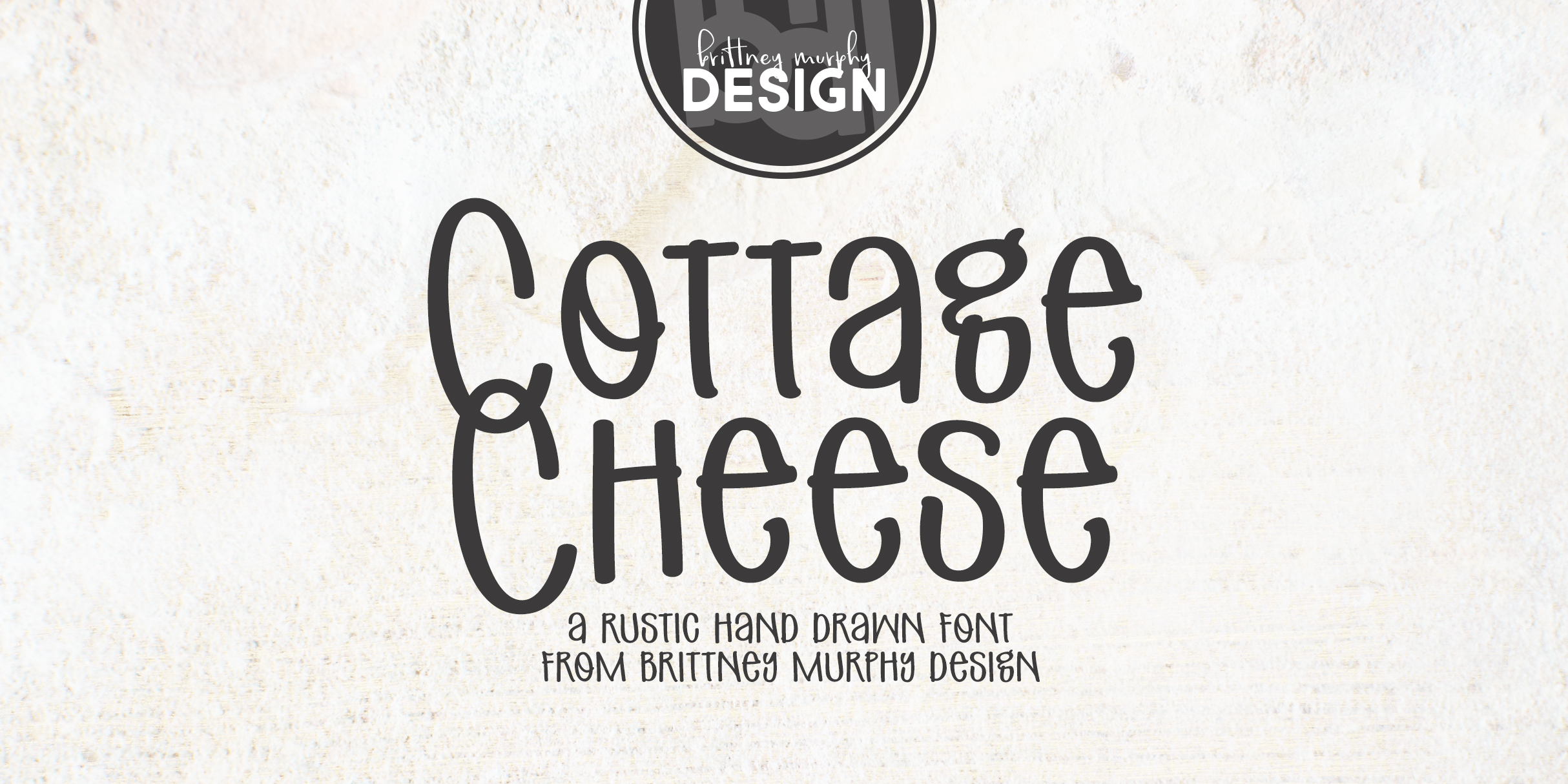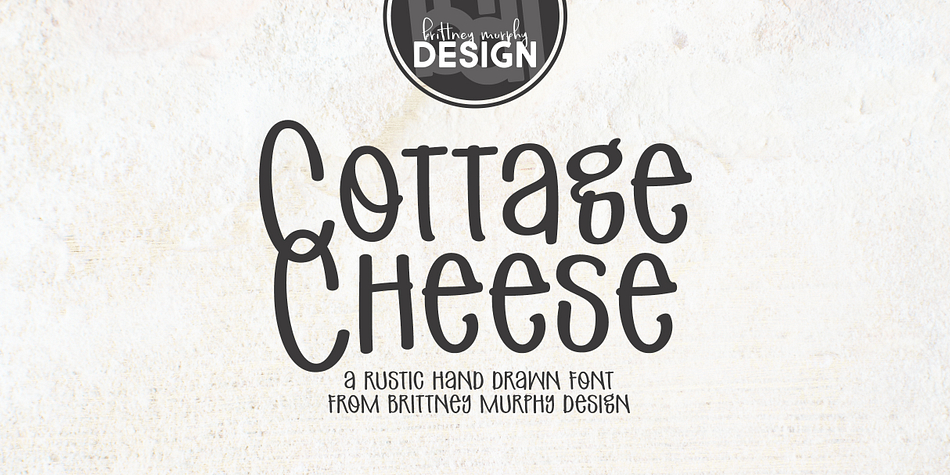
Cottage Cheese
Designed by Brittney Murphy, Cottage Cheese is a hand drawn and kids font family published by Brittney Murphy Design.
Cottage Cheese is a rustic mixed-case font. It’s ALMOST unicase, the uppercase just a little bit bigger than the lower, without any significant ascenders or descenders.
Perfect for country designs or cottage decor. Use it for signs or farmhouse style logos.
Includes over 300 characters with support for most Latin-based languages.